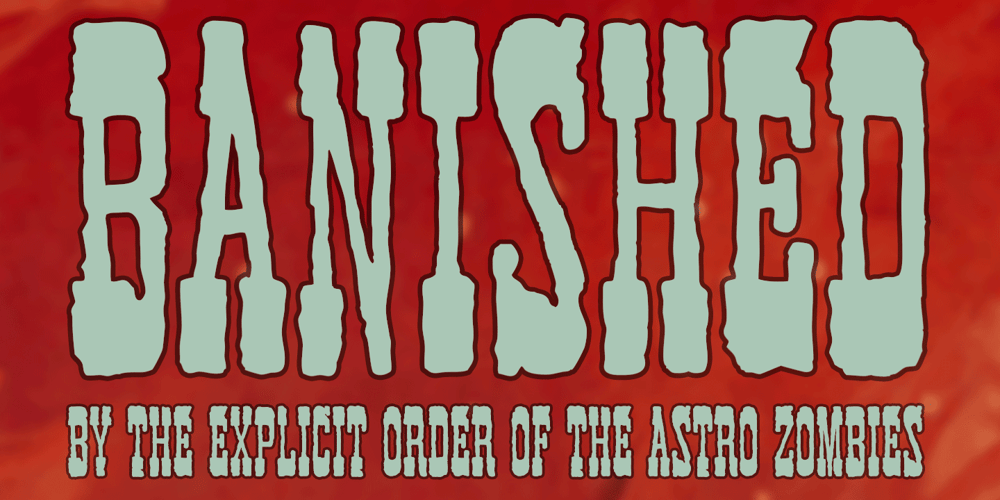
Banished GRP Font Family was designed by Charles Leroux and published by Grype. Banished GRP contains 1 styles and family package options. Banished was inspired by posters for the 1968 Cult Cinema Classic, “Astro Zombies”, but it exudes the rough and tumble, chewed up and spit out Old West era. Banished dives head first into all of the nostalgic clichés of the old west, as well as the cult classic that inspired it. Here’s what’s included with Banished: 388 glyphs – including Capitals, Lowercase (Alt. Capitals), Numerals, Alt. Numerals, Punctuation and an extensive character set that covers multilingual support of latin based languages. (see the 6th graphic for a preview of the characters included) Contextual Alternates that auto-switches between Capitals & Lowercase (Alt Capitals) glyphs, as well as Numerals and Alt Numerals for visual randomness. To access the Contextual Alternates feature, you will need to be using software with Opentype compatibility otherwise you can access the alternate glyphs via a Glyphs panel. Stylistic Alternates feature that swaps all default Numerals with their Alternates Numerals Font is provided in TTF & OTF formats. The TTF format is the standard go to for most users, although the OTF and TTF function exactly the same. Here’s why Banished is for you: You’re in need of a good rustic slab serif typestyle with a narrow width and gritty feel You’re planning a Western themed party and need a unique western typeface You’re a fan of the 1968 Cult Classic “Astro Zombies” as just have to have the font to match You’ve got one of those Old West photography studios and need a great Wanted poster font You just like to collect quality fonts to add to your design arsenal